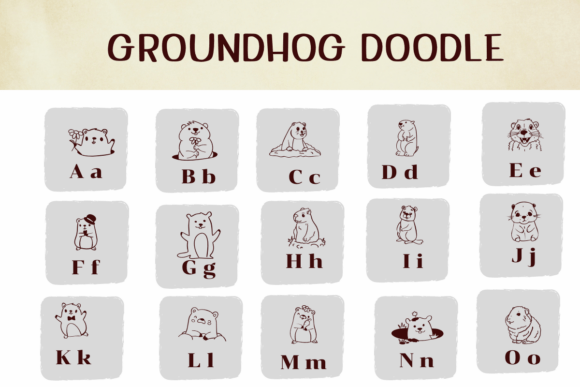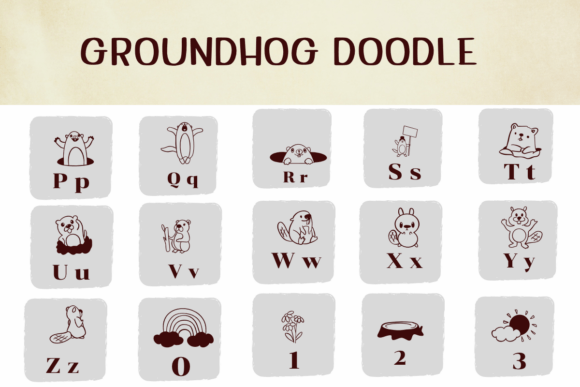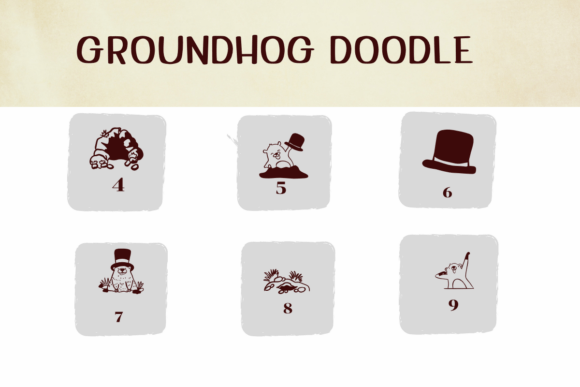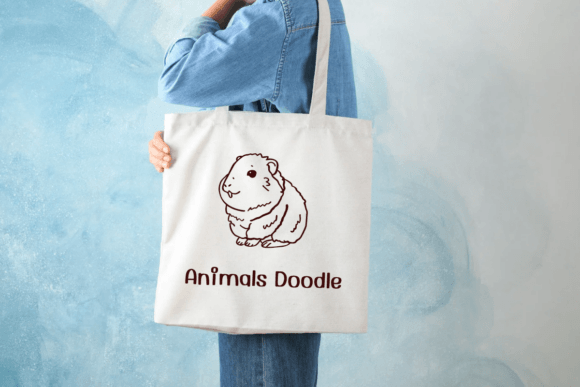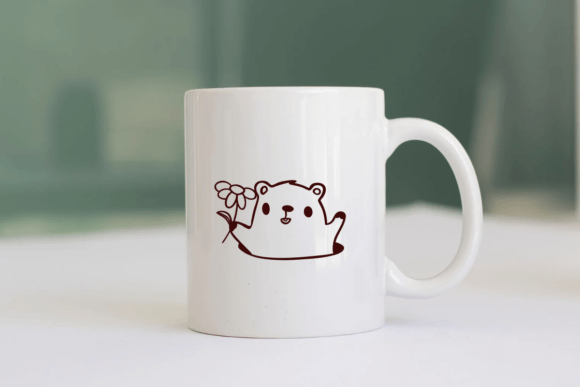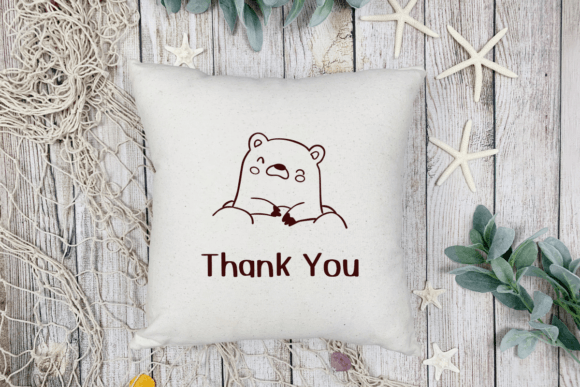
Introducing GROUNDHOG DOODLE Font: Unleash Your Creativity with a Whimsical Dingbats Font
Are you a designer, crafter, or DIY enthusiast looking for a unique and playful font to elevate your creative projects? Look no further than the GROUNDHOG DOODLE font, a delightful dingbats font that brings a touch of whimsy and charm to any design. With its sketch-style theme, this font is perfect for adding a personal and artistic touch to your work.
What is GROUNDHOG DOODLE Font?
GROUNDHOG DOODLE is a dingbats font that features a collection of hand-drawn, sketch-style illustrations and doodles. This font is not just a set of letters and numbers, but a comprehensive library of creative elements that can be used to enhance your designs. From wedding invitations and DIY projects to crafts, decorations, logos, and more, the possibilities are endless with GROUNDHOG DOODLE.
Key Features of GROUNDHOG DOODLE Font
- Sketch-style theme: The GROUNDHOG DOODLE font boasts a charming, hand-drawn aesthetic that adds a touch of personality to your designs.
- Dingbats font: This font features a wide range of illustrations and doodles, making it perfect for adding visual interest to your projects.
- Versatile: Use GROUNDHOG DOODLE for a variety of creative projects, from wedding invitations and DIY crafts to logos and decorations.
Creative Ways to Use GROUNDHOG DOODLE Font
The GROUNDHOG DOODLE font is an incredibly versatile design tool, and its uses are limited only by your imagination. Here are some creative ways to incorporate this font into your projects:
- Wedding Invitations: Add a touch of whimsy and romance to your wedding invitations with GROUNDHOG DOODLE’s charming illustrations.
- DIY Crafts: Use this font to create custom labels, cards, and decorations for your DIY crafts.
- Logos and Branding: Incorporate GROUNDHOG DOODLE into your logo design or branding materials to add a playful, creative touch.
- Decorations: Create custom decorations, such as garlands, banners, and signs, using this font.
- Stationery: Add a personal touch to your stationery, including notebooks, journals, and greeting cards.
Tips for Getting the Most Out of GROUNDHOG DOODLE Font
To make the most of this amazing font, here are some tips to keep in mind:
- Experiment with different colors: GROUNDHOG DOODLE looks great in a variety of colors, so don’t be afraid to try out different palettes.
- Mix and match illustrations: Combine different illustrations and doodles to create unique and interesting designs.
- Use it with other fonts: Pair GROUNDHOG DOODLE with other fonts to create visually appealing and dynamic designs.